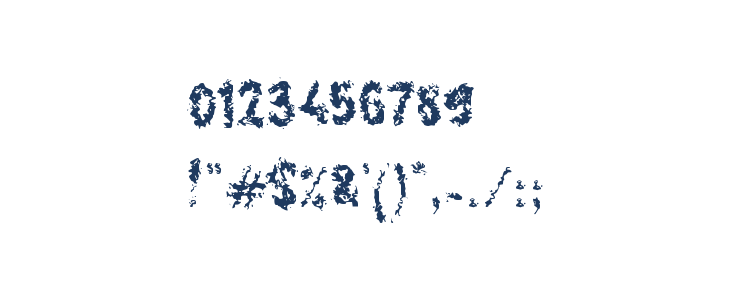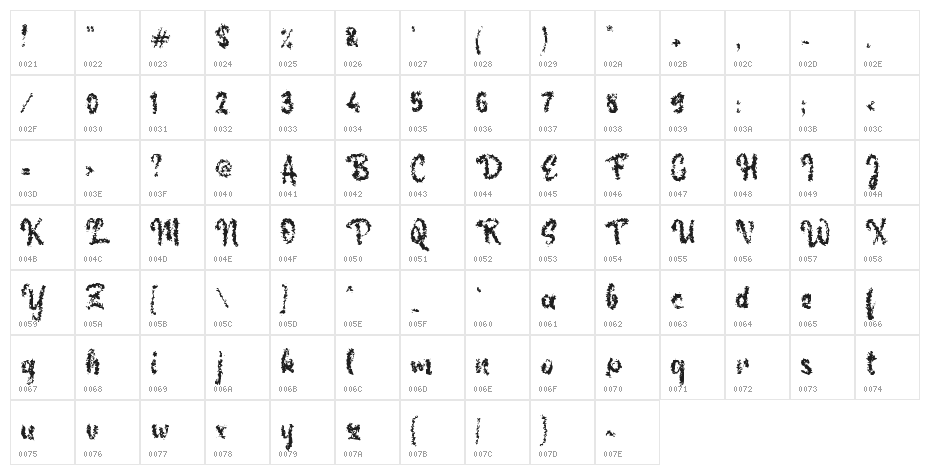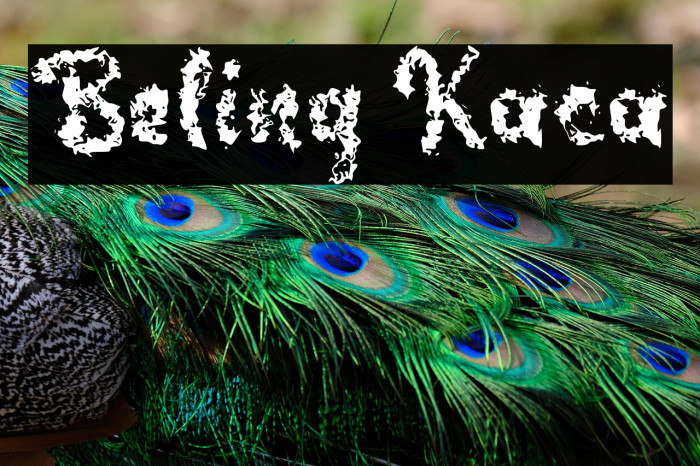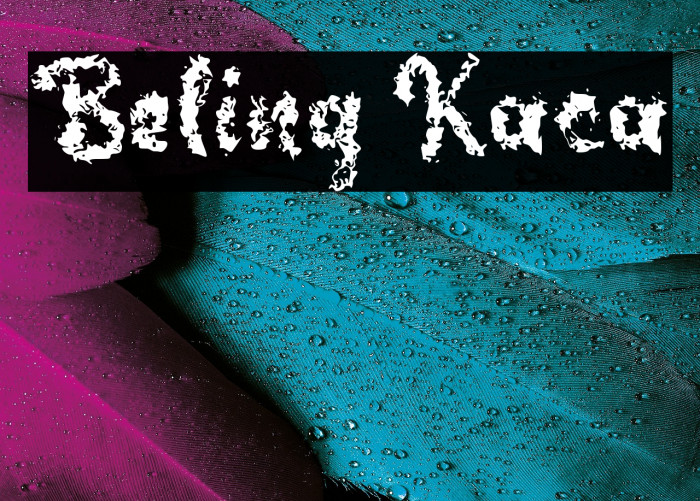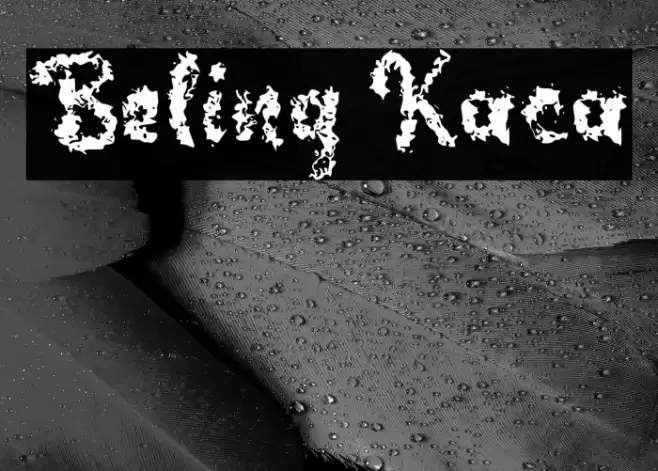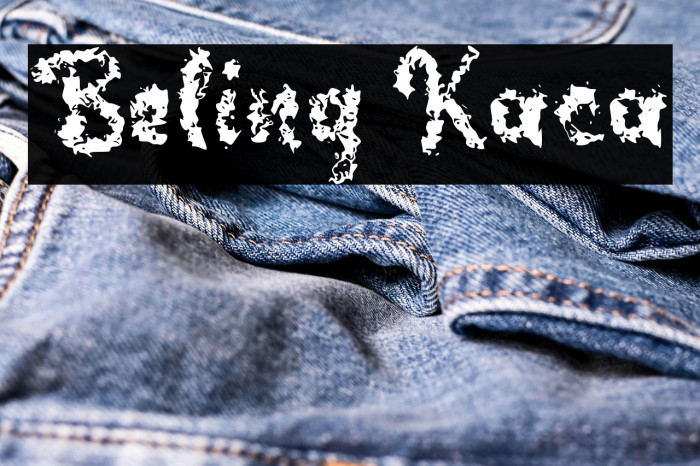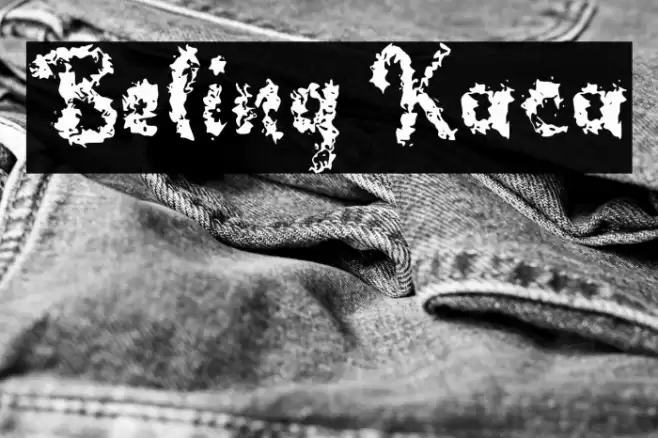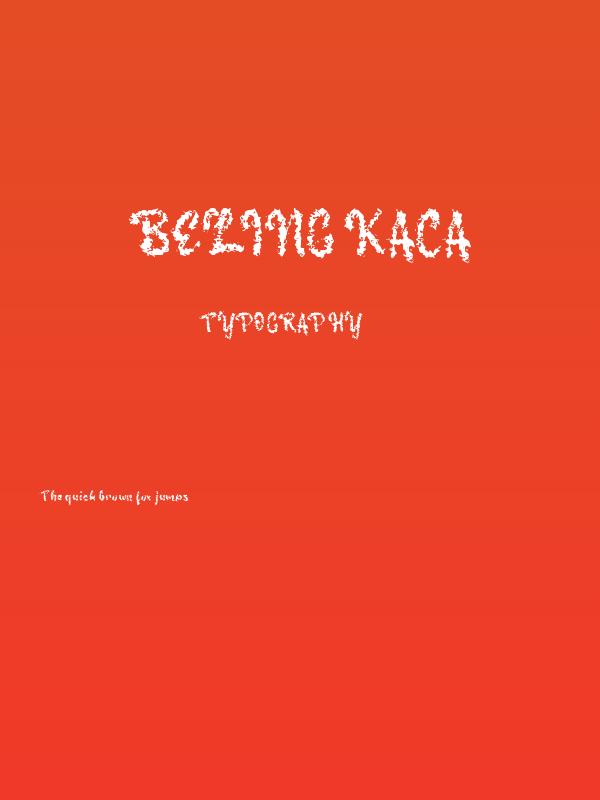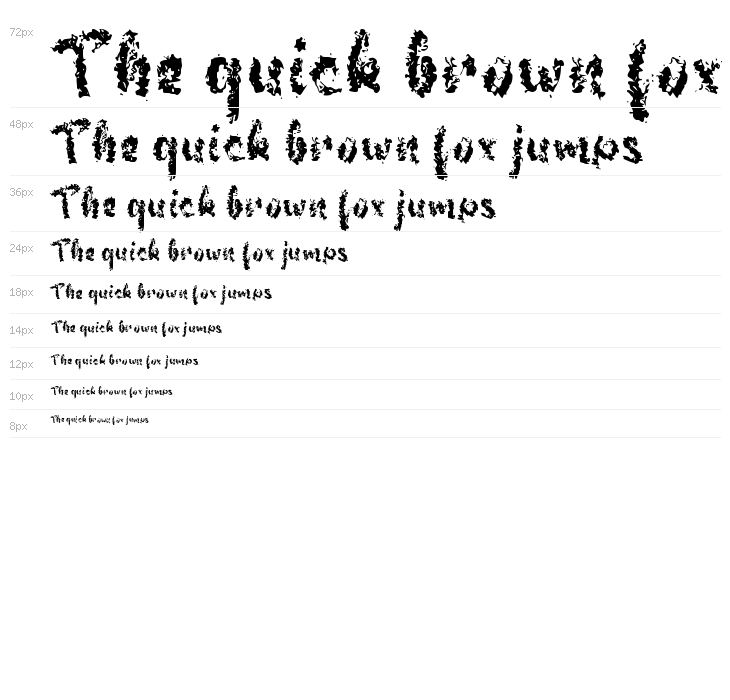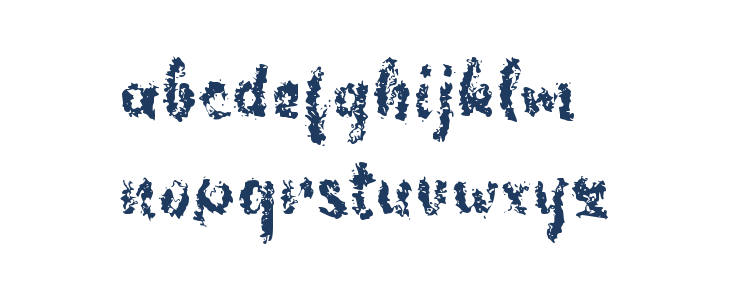
Beling Kaca Font
Beling Kaca Description
This font features a highly decorative and artistic style, characterized by its intricate and chaotic design. Each character appears to be crafted with a swirling, almost organic pattern that gives it a unique and eye-catching appearance. The font maintains a consistent level of complexity across both uppercase and lowercase letters, as well as numbers and special characters. Its bold and dynamic presence makes it stand out, while the irregular shapes and forms add a sense of movement and energy. This font is ideal for projects that require a strong visual impact and a touch of creativity.
| Proposed Projects | Ideal for artistic posters, album covers, creative branding, and unique event invitations. |